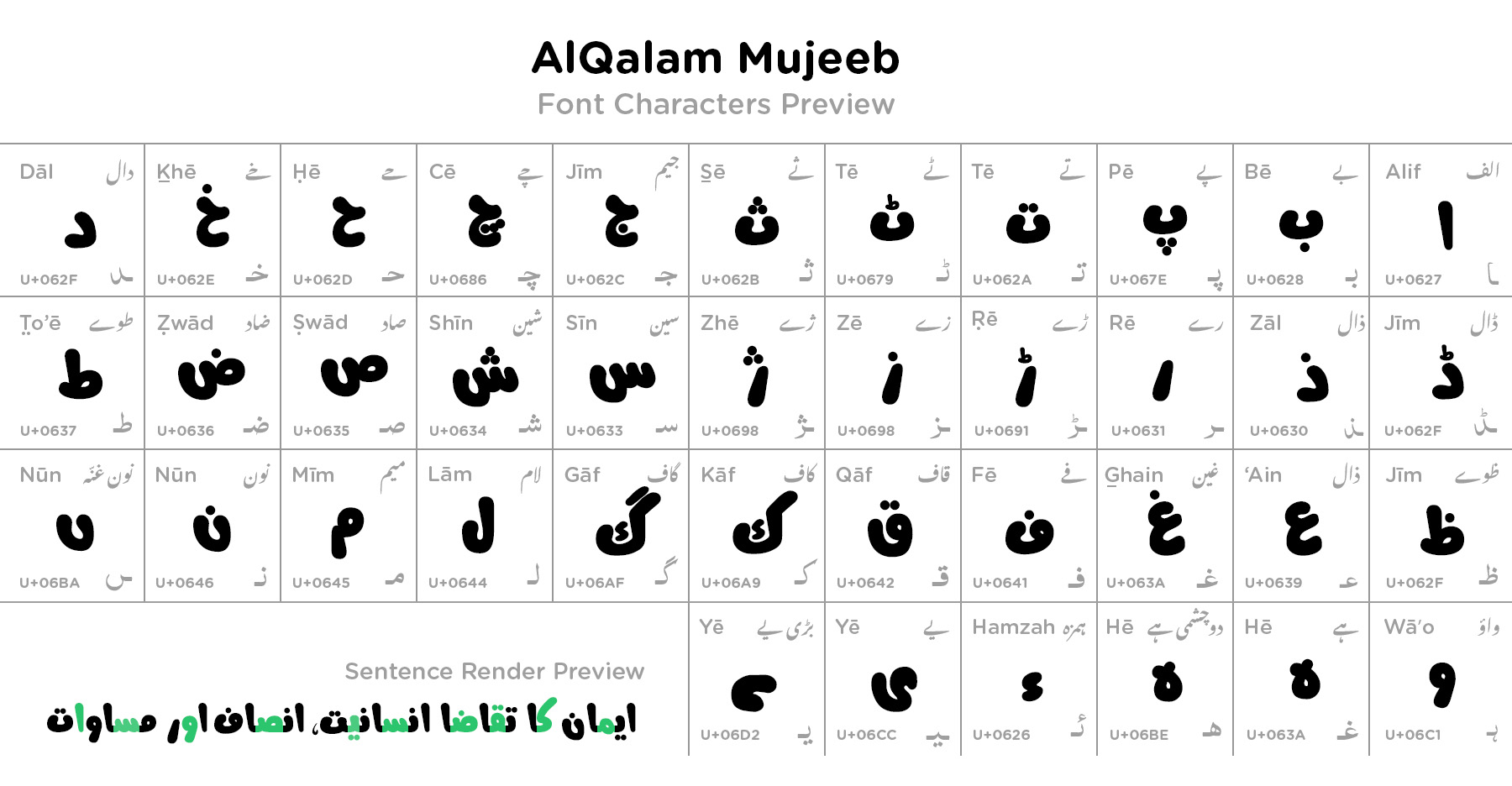
Alqalam Mujeeb is a cartoon-style bubbly font that belongs to the AlQalam font family. The letters of this font are thick and rounded, giving them a bold and playful appearance. This makes them stand out and be easily readable, even in small sizes. The lines are uneven and slightly imperfect, mimicking the look of hand-drawn lettering. This adds a sense of personality and originality to the font. The overall feel of the font is reminiscent of 1950s and 60s pop culture, with its bubbly shapes and cheerful vibe. This makes it a good choice for children’s content, branding, or any project that needs a bit of a playful feel. Despite its bold and lively style, the font can still be used for various purposes. It would be well-suited for headlines, logos, posters, t-shirts, and even body text in certain contexts. Moreover, it consists of 215 characters and a glyph count of 329, with support for various languages and compatibility with the latest Unicode blocks.